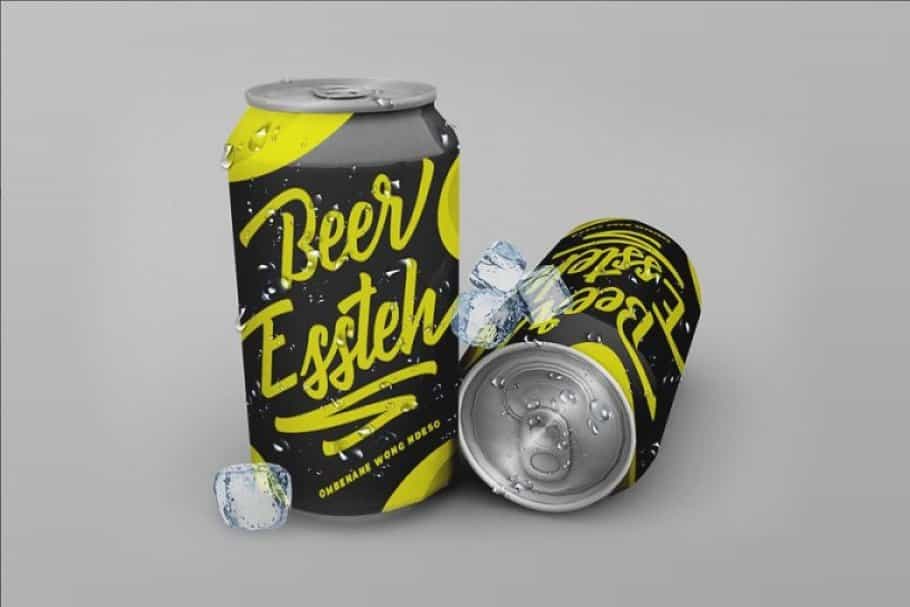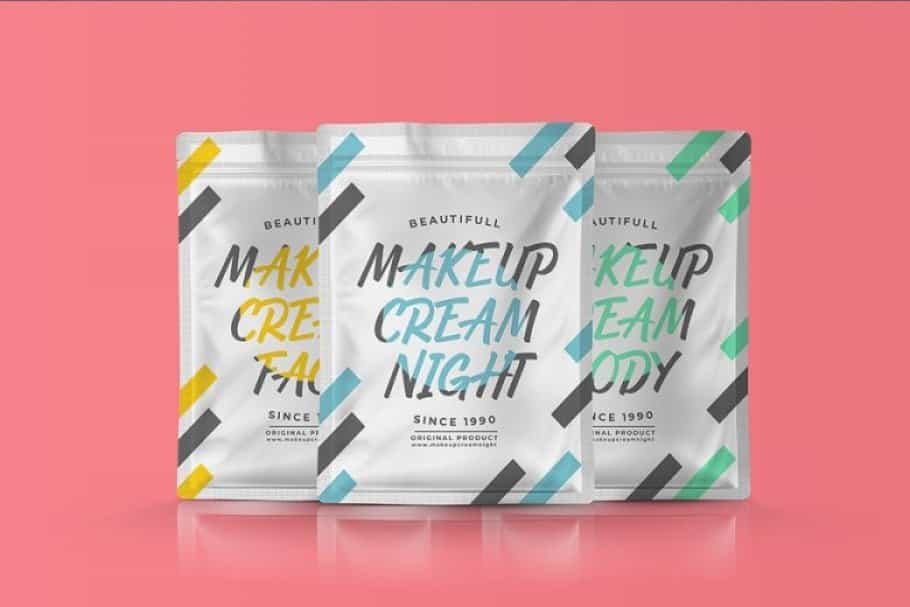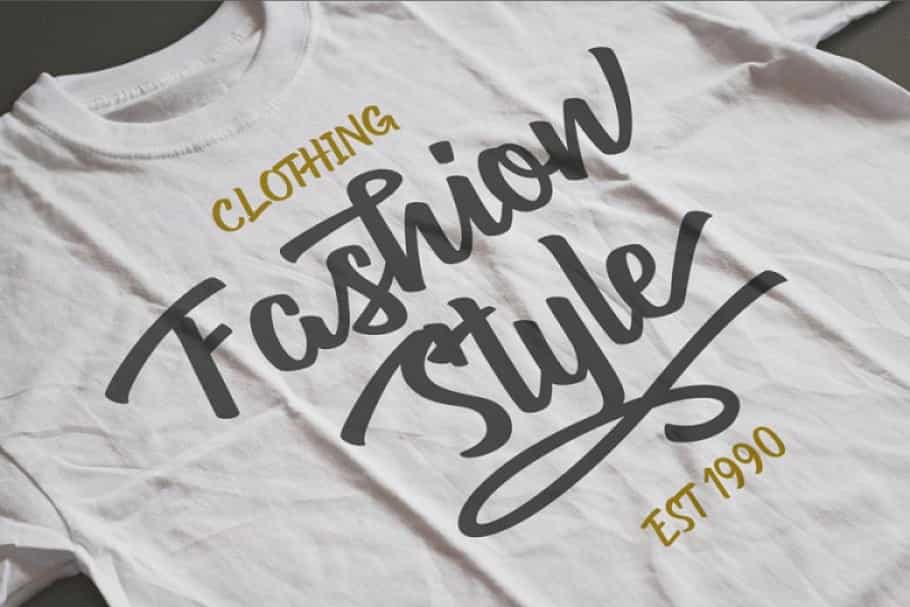
Introducing Ondfuturs Font. A hand script typeface. Ondfuturs was designed and shared by maculinc. The font is a story of old times with to the future and many points of view. Ondfuturs Script is a bold and easy to read typeface, thus it is very comfortable to wear.